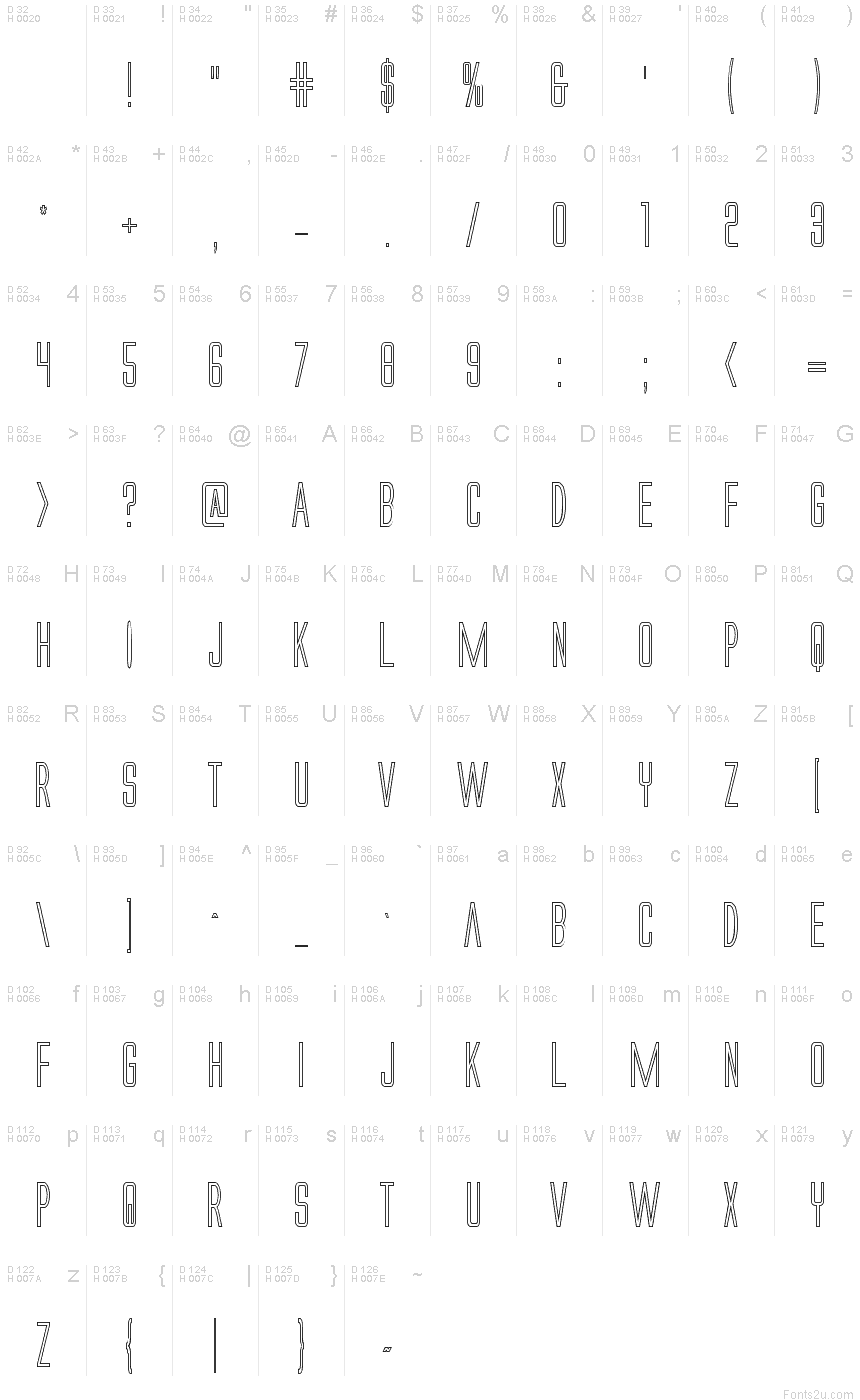
Alien League Outline from Iconian Fonts is a free futuristic outlined display font with exceptionally tall, narrow capitals. Long straight sides dominate the design, broken by compact curves and angled joins. The letters look spare and sharply vertical.
Space travel, science fiction, and advanced machinery are its clearest subjects, so it fits game interfaces, film posters, and electronics packaging. The elongated construction can suggest tower-like architecture or instrument-panel markings in editorial graphics. For event branding, the open linear treatment can echo circuit diagrams and spacecraft schematics, turning the letters into part of the technical imagery.